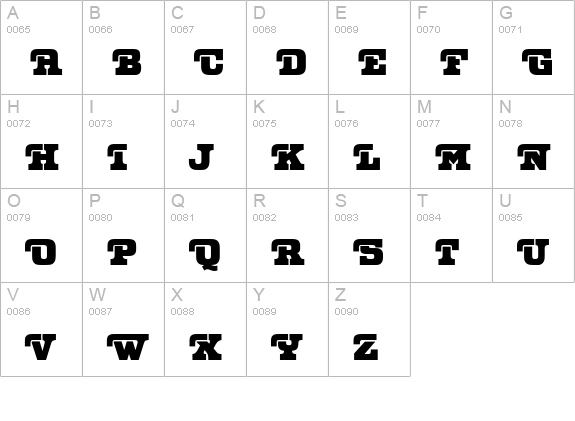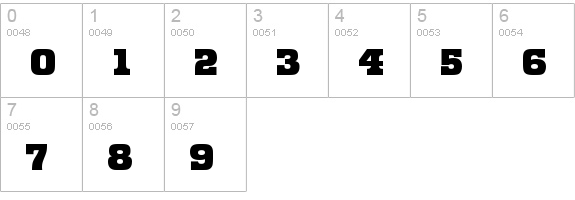
Otis-Poster-Regular Font Details
Otis-Poster-Regular is the standard, neutral variant in the Otis typeface family \xE2\x80\x94 well suited to general body text, paragraphs, and standard typographic work.
Otis-Poster-Regular is a modern and stylish font that exudes elegance and sophistication. With its clean lines and unique design, this font is perfect for a wide range of projects, from branding to editorial design. The versatility of Otis-Poster-Regular makes it a must-have for any designer looking to add a touch of class to their work. What makes Otis-Poster-Regular even more appealing is that it is completely free to download. Yes, you read that right – this stunning font is freely available at FontsMarket.com, allowing you to enhance your projects without breaking the bank. So why wait? Download Otis-Poster-Regular today and elevate your designs to the next level.